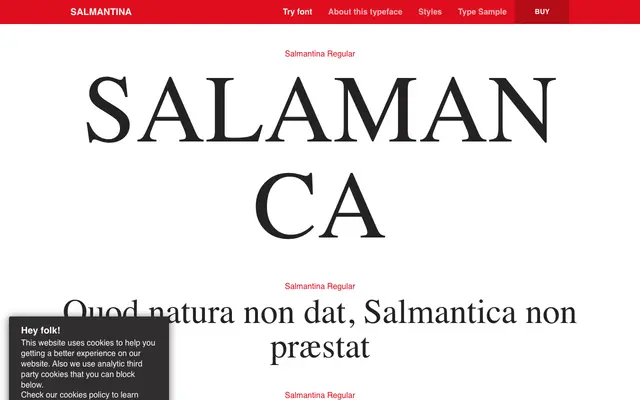
Salmantina
Typerepublic · 1997
A display typeface drawn from 16th-century inscriptional lettering on the walls of Salamanca University, first developed in 1997 for the university's signage system and comprehensively revised between 2020 and 2023.
Originally created for the signage of Salamanca University campus under the name Universitas Studii Salamantini, the design takes its proportions and weight from narrow monumental Roman lettering that has adorned the university's walls since the 16th century. A major revision completed in 2023 introduced lowercase letters and an extensive set of OpenType alternates, including ten stylistic sets, discretionary ligatures and ordinals. The result is a family of five weights suited to academic, cultural and heritage contexts where historical gravitas is required.
A narrow, elegant display typeface derived from 16th-century inscriptional lettering on the walls of Salamanca University, rooted in the monumental Roman tradition with a vertical, upright axis and refined modulated strokes.